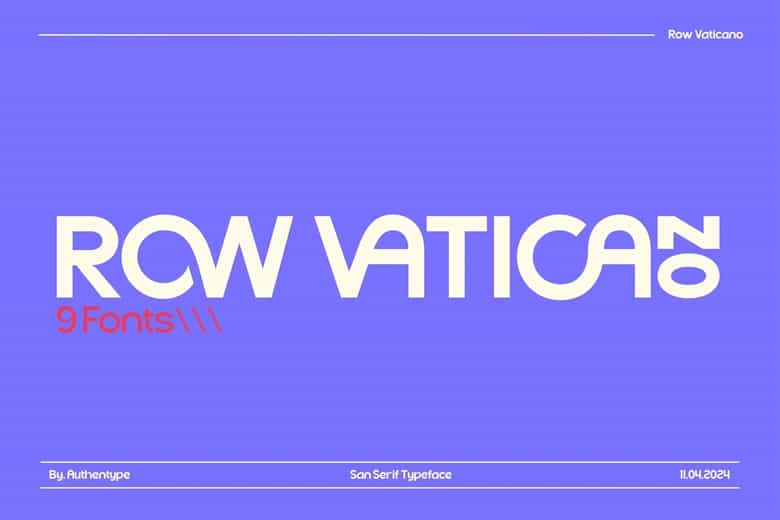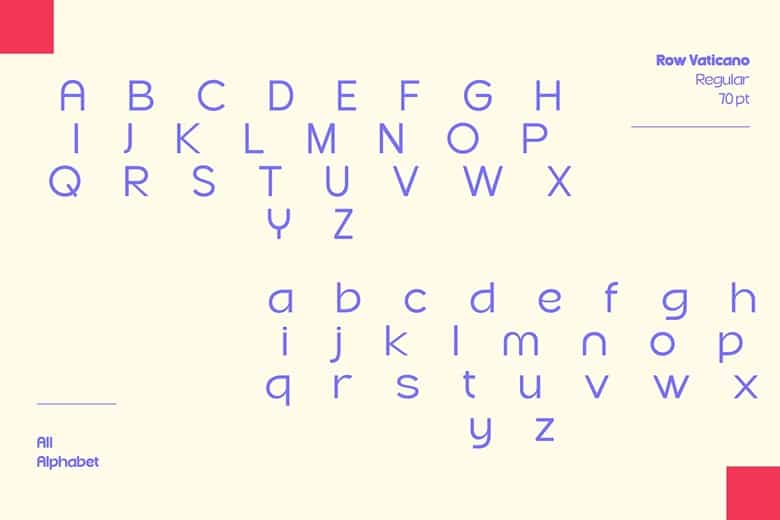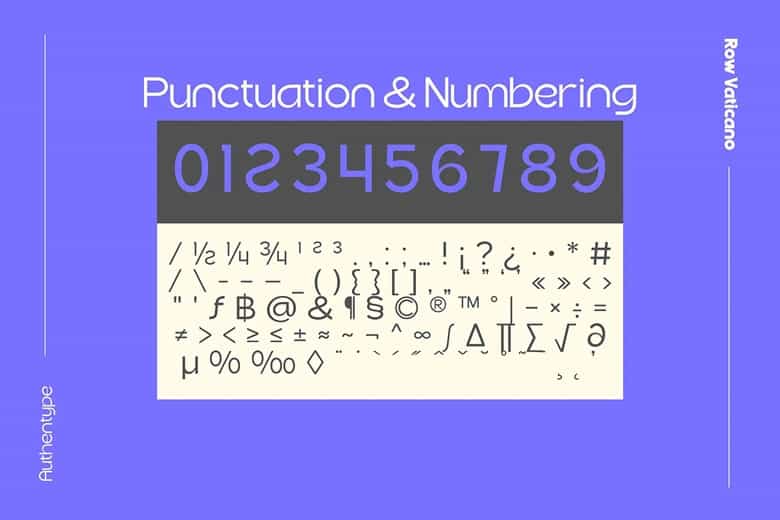
Row Vaticano is a new sans-serif font created to convey ease and sophistication for any project. The casual and warm appearance makes Row Vaticano ideal for brands that can benefit from simple yet visually current design.